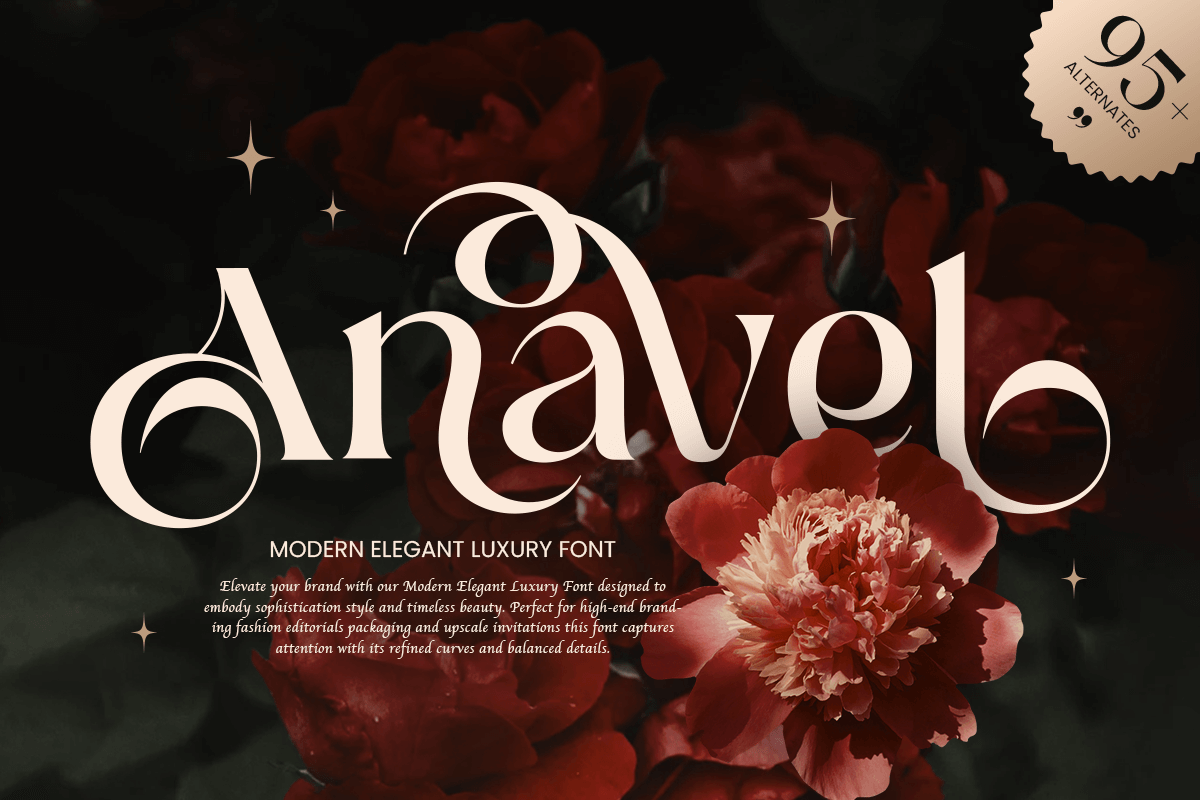
Anavel
-Modern Unique Logo Serif FontAnavel – Modern Unique Logo Serif Font
Anavel is a modern elegant luxury font crafted for high-end branding, logos, wedding invitations, and premium projects. Its sleek and refined letterforms provide a stylish, sophisticated touch that enhances any creative design.
Inspired by contemporary elegance, Anavel blends modern minimalism with luxurious appeal, making it ideal for fashion, lifestyle, and luxury brands across print and digital media.
Anavel – Modern Elegant Luxury Font Features
Elegant and modern character set
Perfect for branding, logos, and premium designs
OpenType features for extra versatility